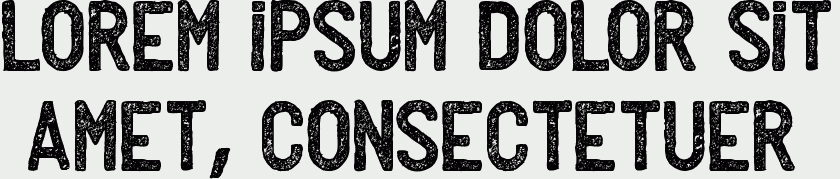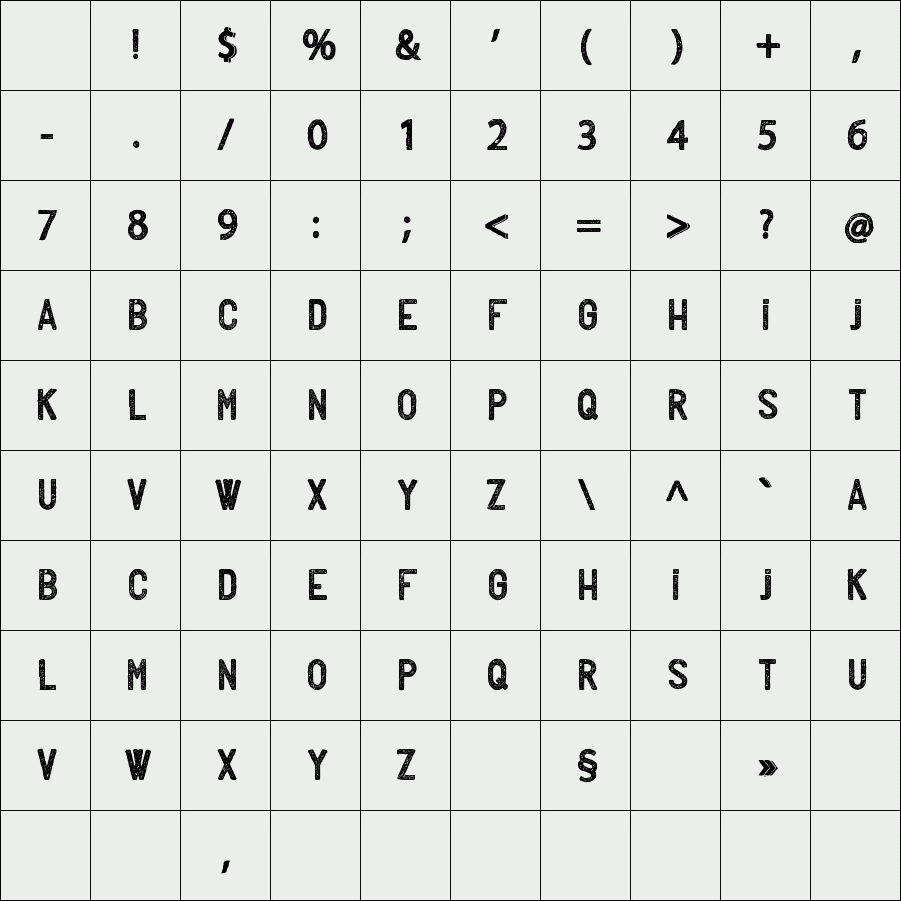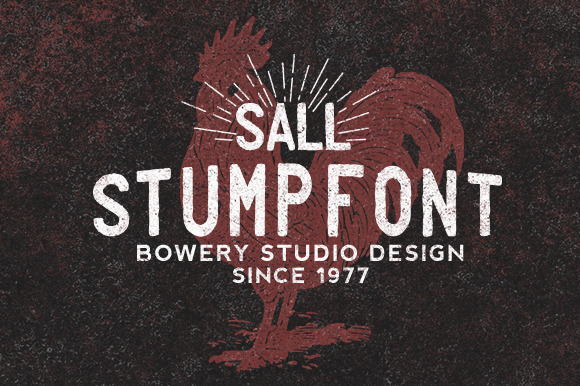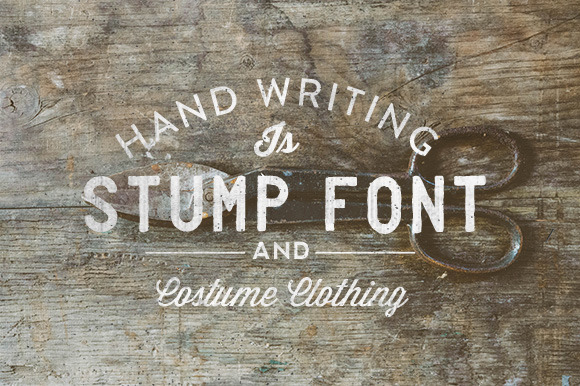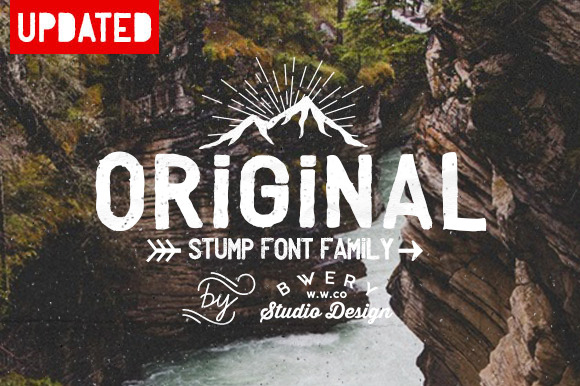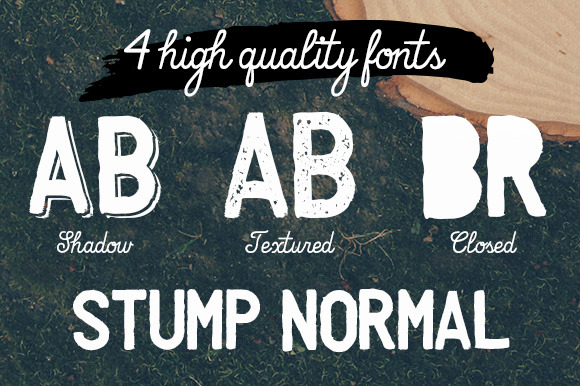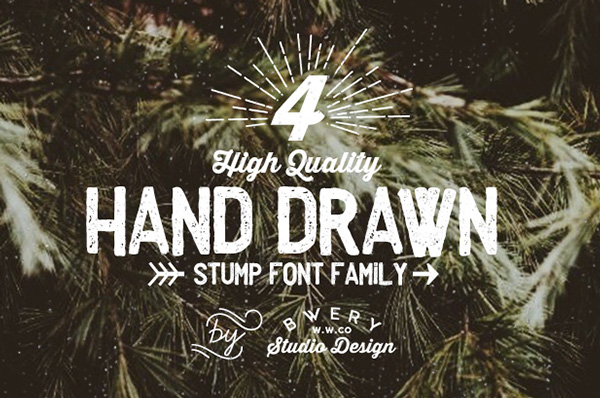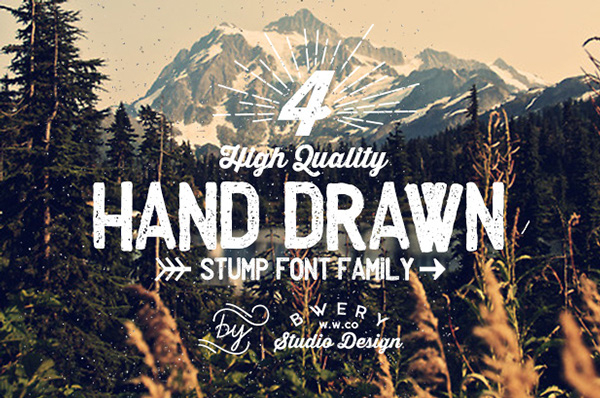
Stump font family
/ STUMP textured
Stump is a font family of 4 faces Outstanding vintage written style will perfectly fit for headlines of all sizes, print graphics, logos, badges, t-shirts and other designs.
4 high quality typefaces + bonus
Stump one
Stump closed
Stump shadow
Stump textured